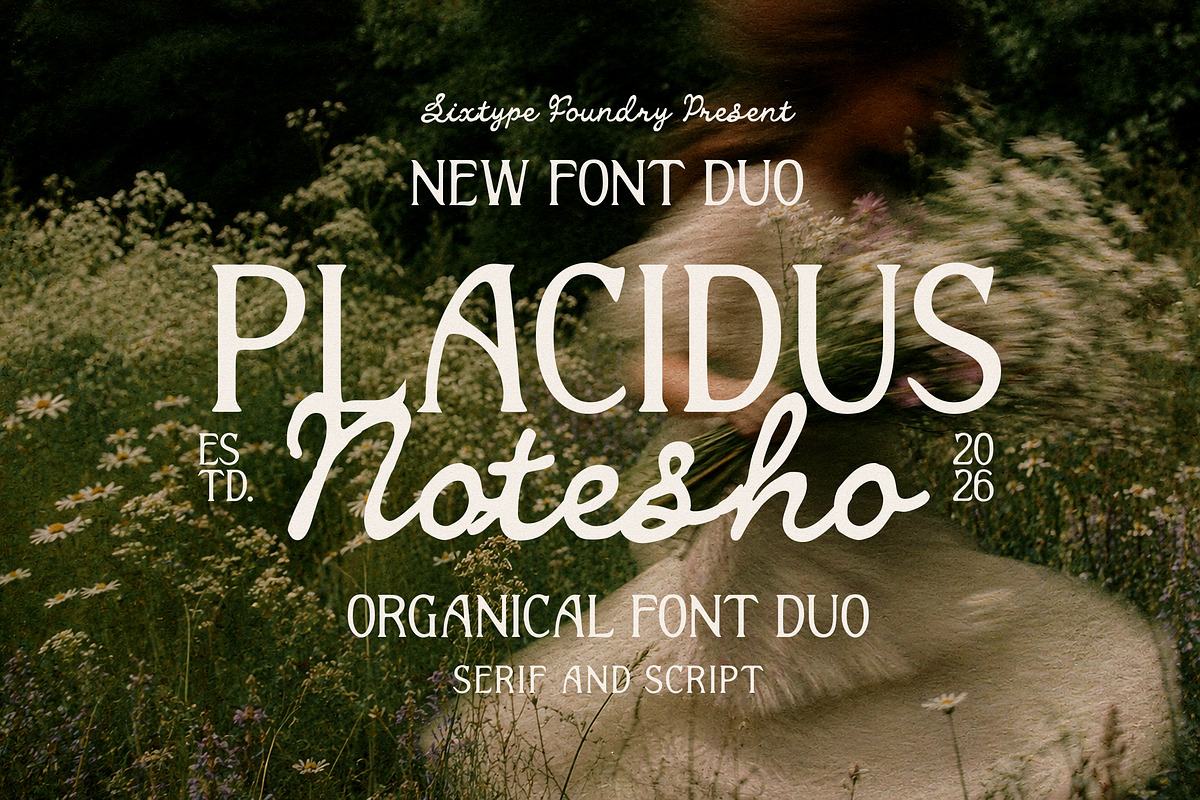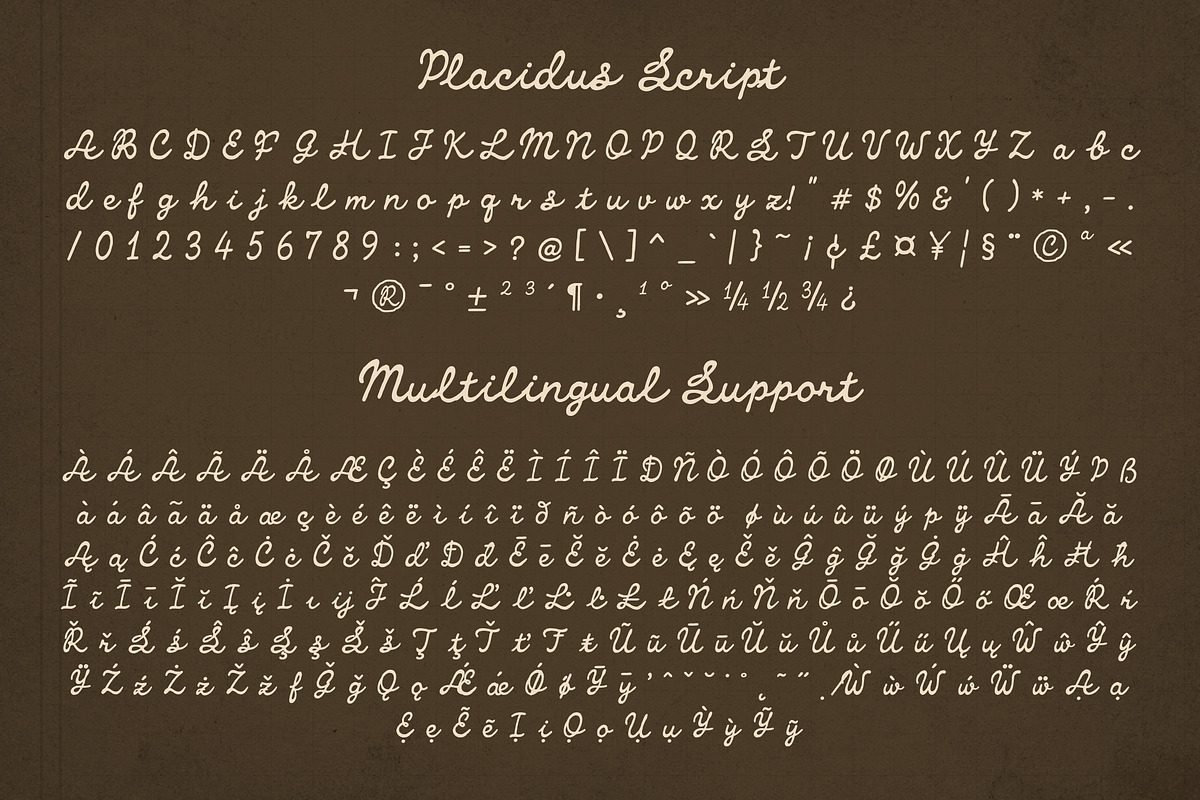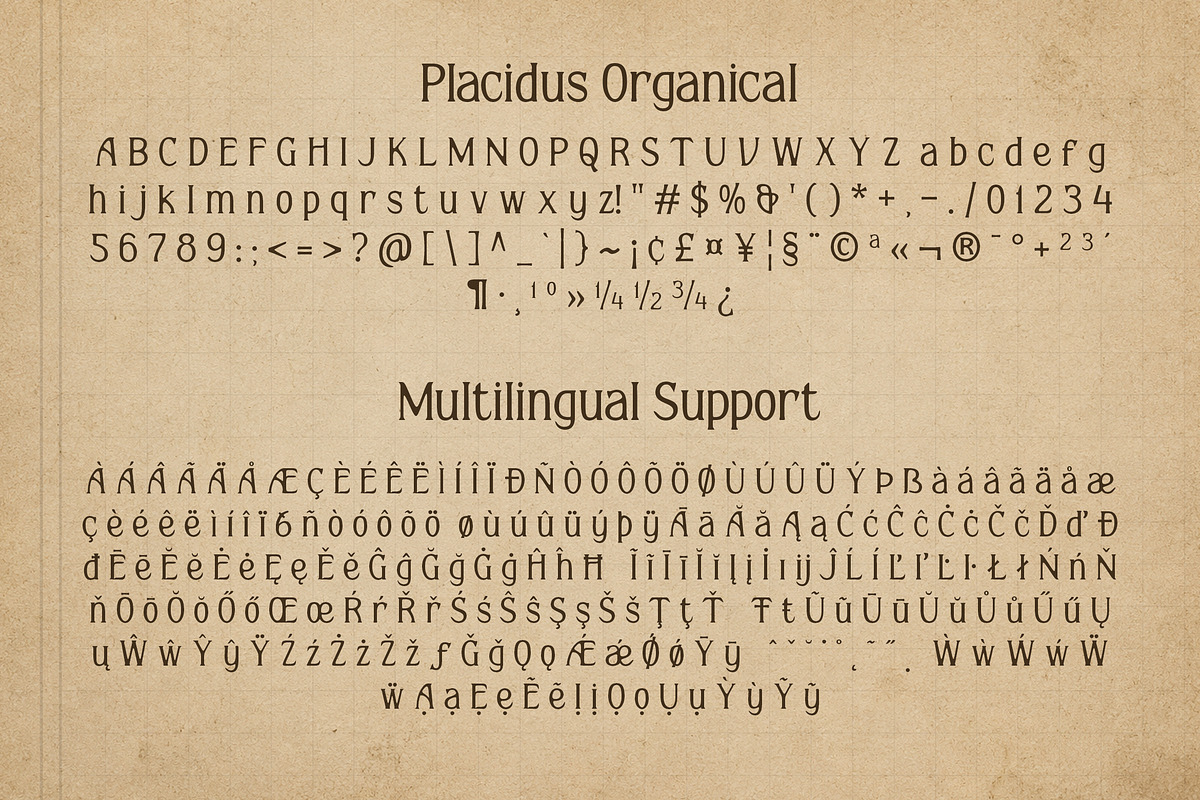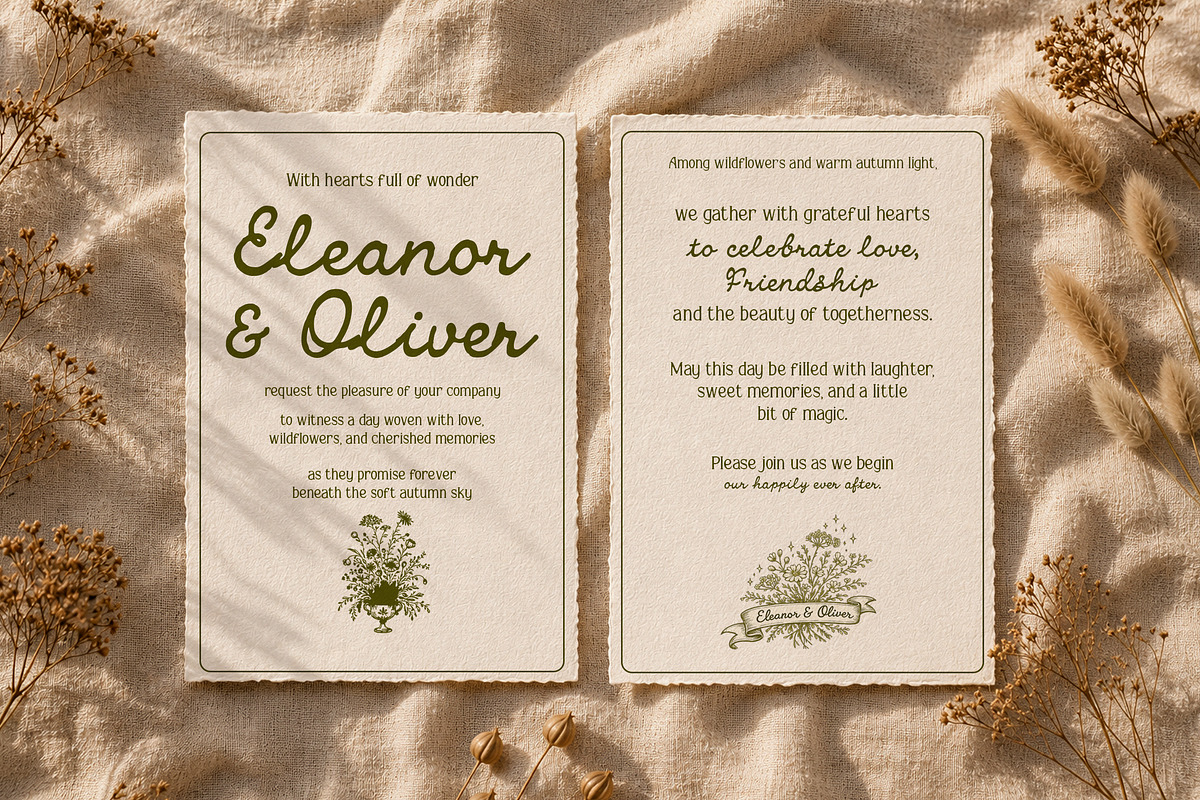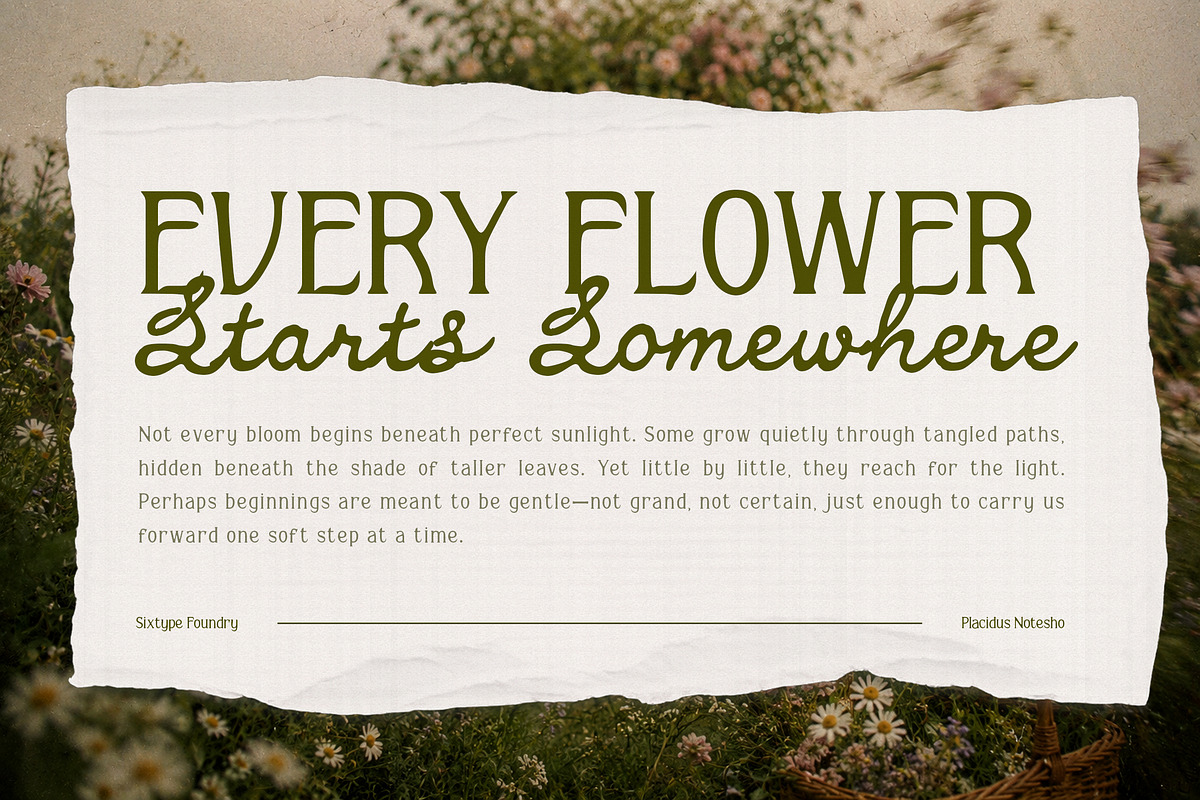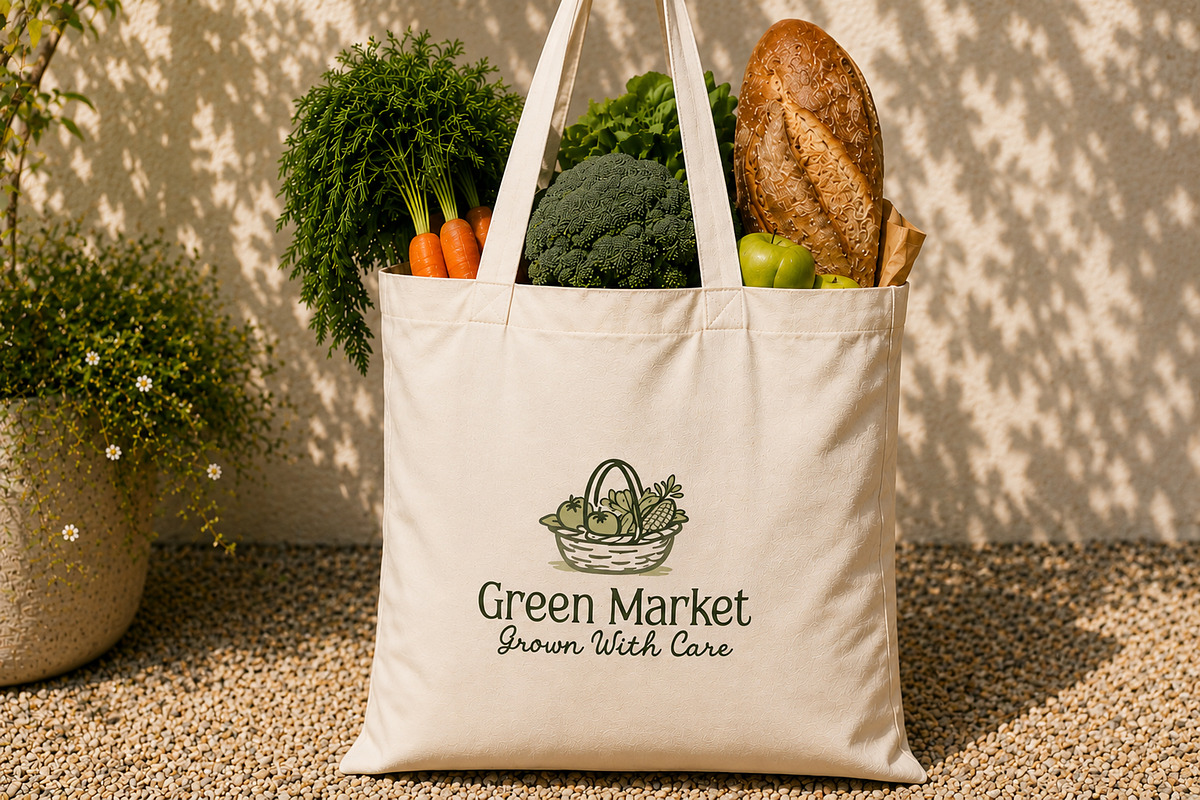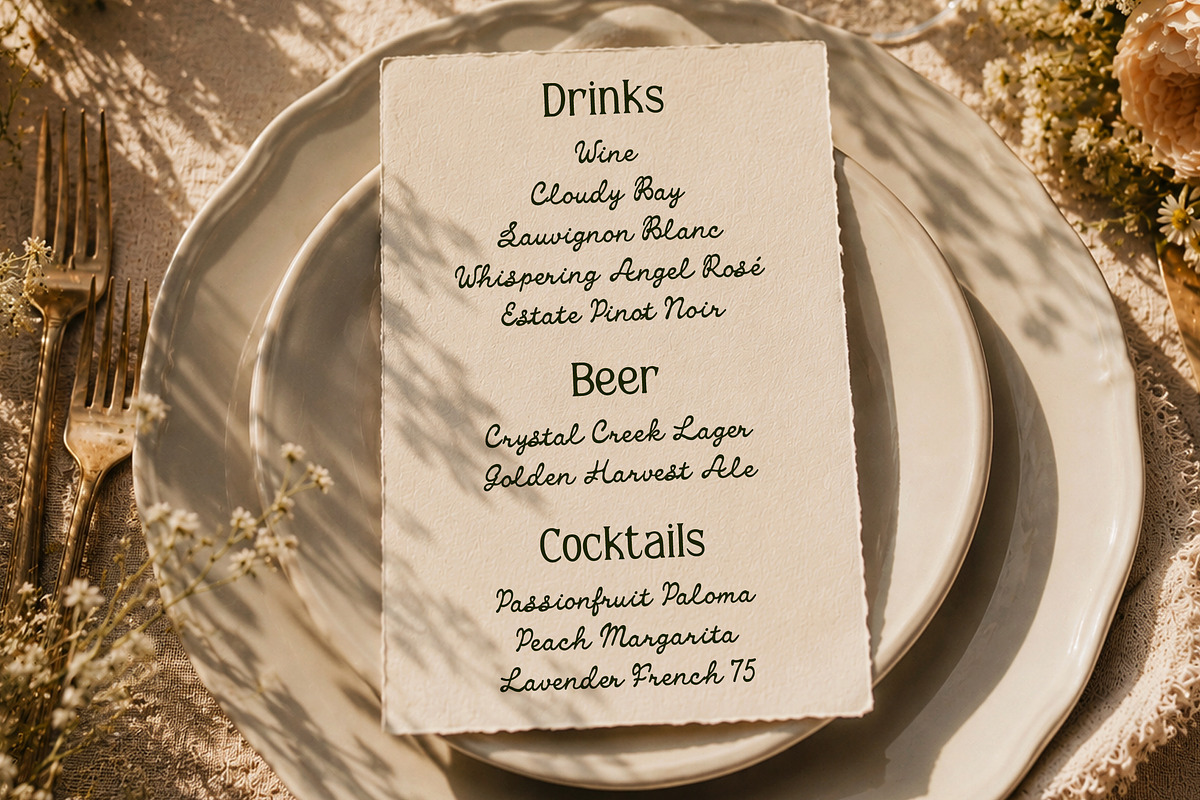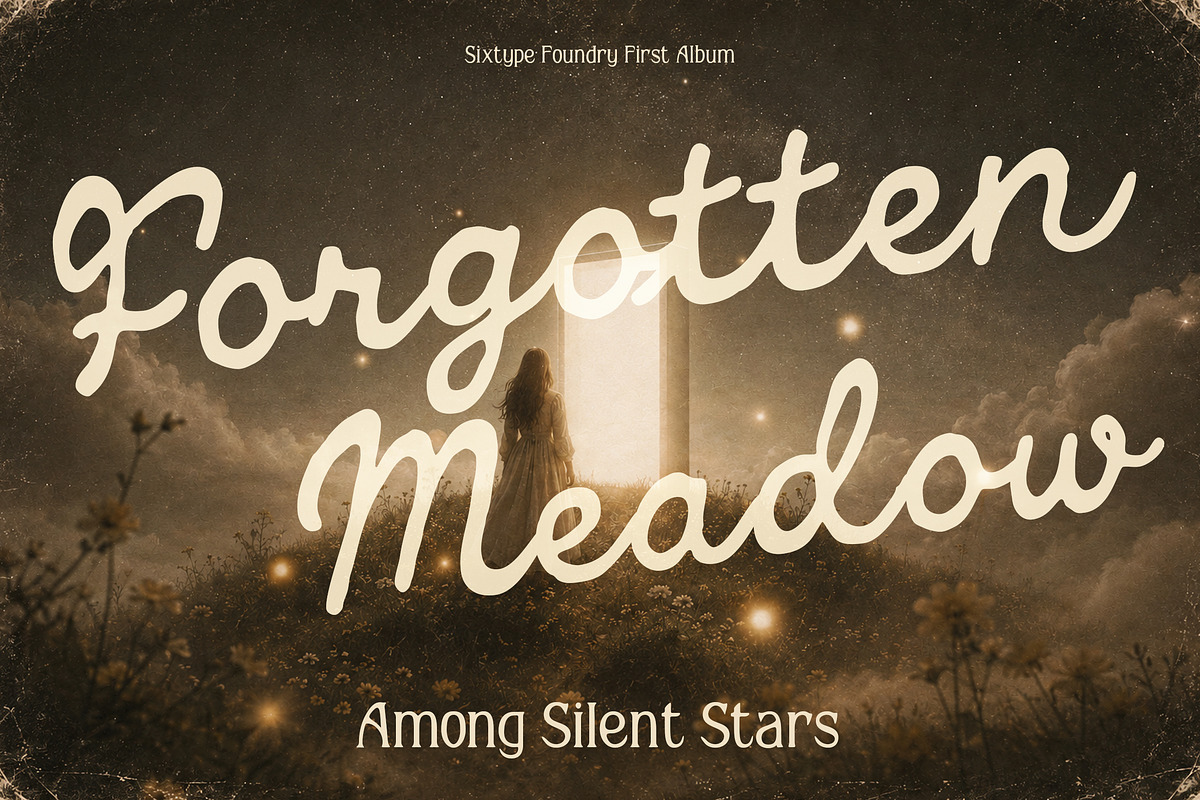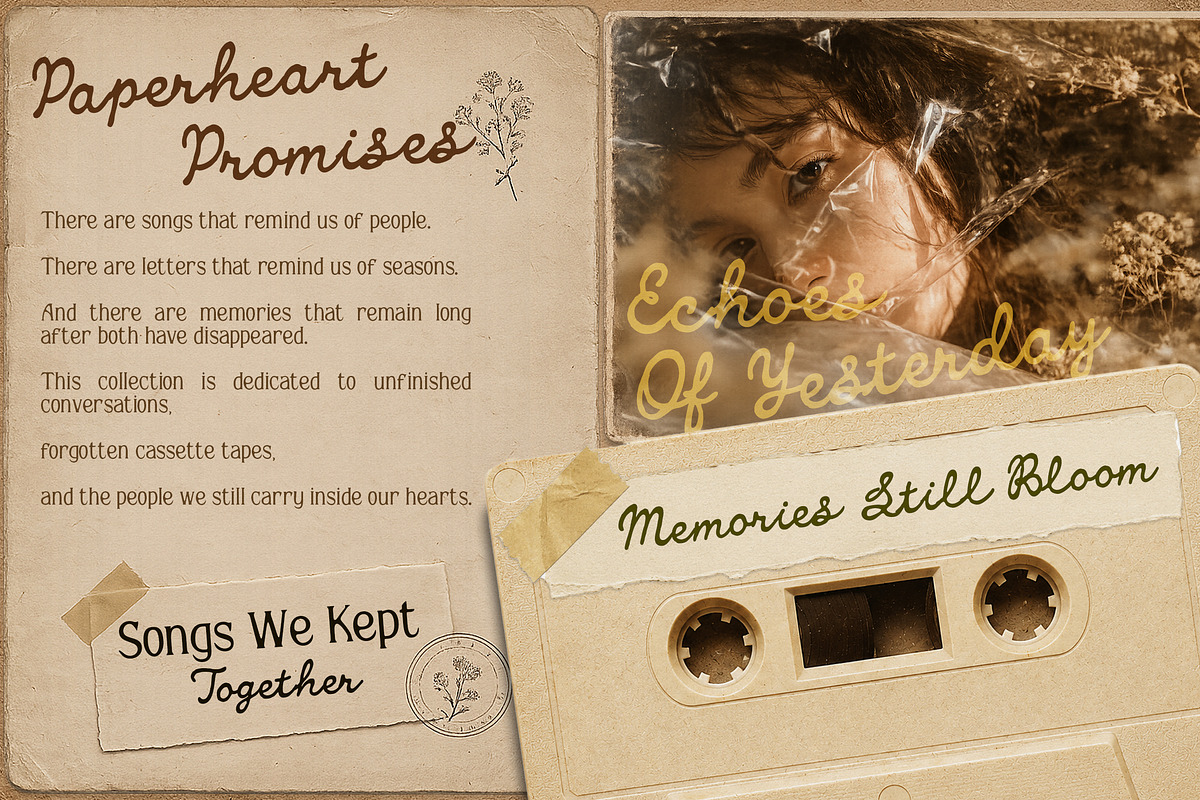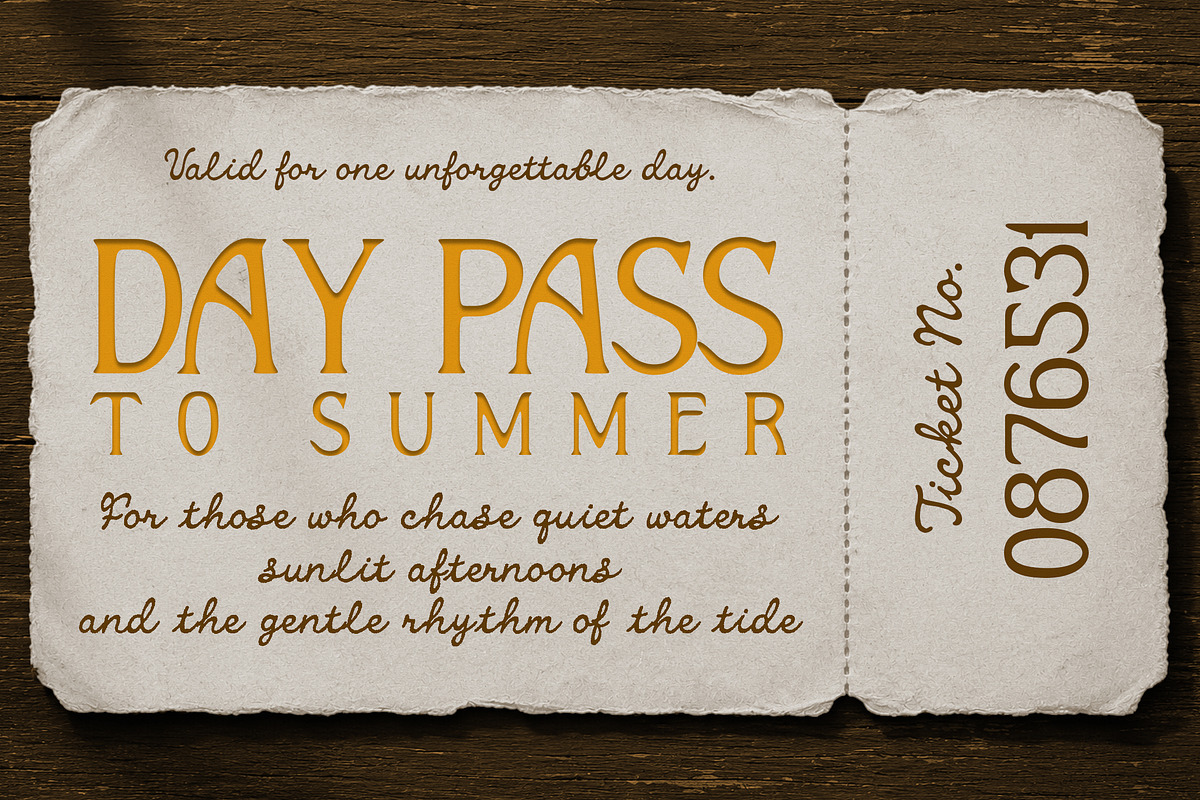
Placidus Notesho Retro Whimsical
Placidus Notesho is a signature script trio, built as a companion set for projects that want a personal, handwritten mark alongside decorative and clean-text alternatives. The Script carries fluid, connected strokes with a natural forward lean, the kind of signature you'd sign at the bottom of a letter. The Organical style takes that same hand and loosens it further, adding organic, flourish-heavy swashes for a wilder, more expressive accent. The Regular keeps things grounded, with a clean, structured letterform built to carry supporting text without competing with the other two.
What sets Placidus Notesho apart is how the set balances expression and restraint. The Script stays legible at sentence length instead of collapsing into loops, the Organical brings in the drama and texture for standalone words or monograms, and the Regular anchors everything else, complete with fraction, ordinal, and superscript support for the fine typographic details a project needs. Together, the three give a single project a full range of voices, from decorative flourish to quiet, readable text, without reaching for a second typeface.
Picture the Script signing off a wedding invitation, the Organical dressing up a monogram or wax seal detail, and the Regular carrying the reception details underneath. That range, expressive accent, decorative flourish, quiet body copy, is where this set does its best work.
Placidus Notesho suits wedding invitations and save-the-dates, boutique branding and logo lockups, monogram design, candle and packaging labels, editorial headlines, and social media graphics. The Regular style also holds up on its own for straightforward body copy where the script or organical styles would be too much.